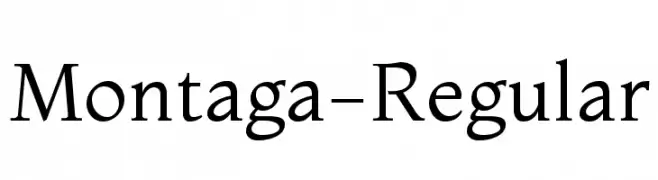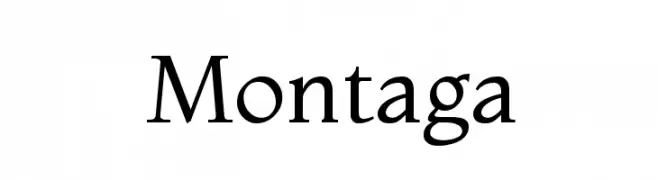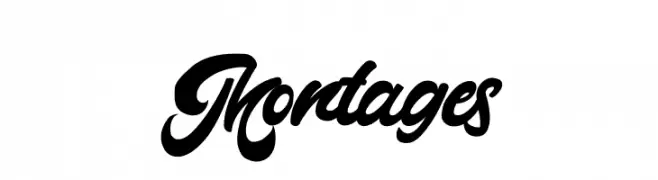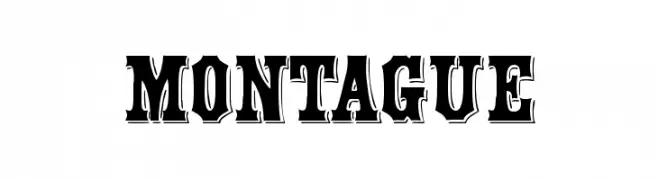
Sansation Bold Font
A bold, modern sans-serif font with clean lines and strong legibility.
Sansation Light Font
A modern, light sans-serif font with clean lines and rounded edges.
Sansation Font
A modern sans-serif font with clean lines and balanced proportions.
Sansation Regular Font
A modern sans-serif font with smooth curves and balanced proportions.
Chantelli Antiqua Font
An elegant, calligraphic font with sharp serifs and dynamic strokes.
Montague Font
A bold, decorative font with a shadow effect and pronounced serifs.
Sansation Bold Italic Font
A bold, italic, modern sans-serif font with a sleek and dynamic style.
Montaga Font
A classic serif font with elegant, well-balanced strokes and refined character design.
Majoris Italic Font
A bold, italic font with dynamic slanted letterforms for impactful designs.
Montaga-Regular Font
A classic serif font with elegant and refined letterforms.
Sansation Italic Font
A sleek, modern sans-serif font with an italic slant.
Majoris Regular Font
A bold, modern font with strong, rounded letterforms.
Sansation Light Italic Font
A sleek, modern sans-serif font with a light, italic style.
Montages Font
A bold, flowing script font with elegant cursive letterforms and high contrast.